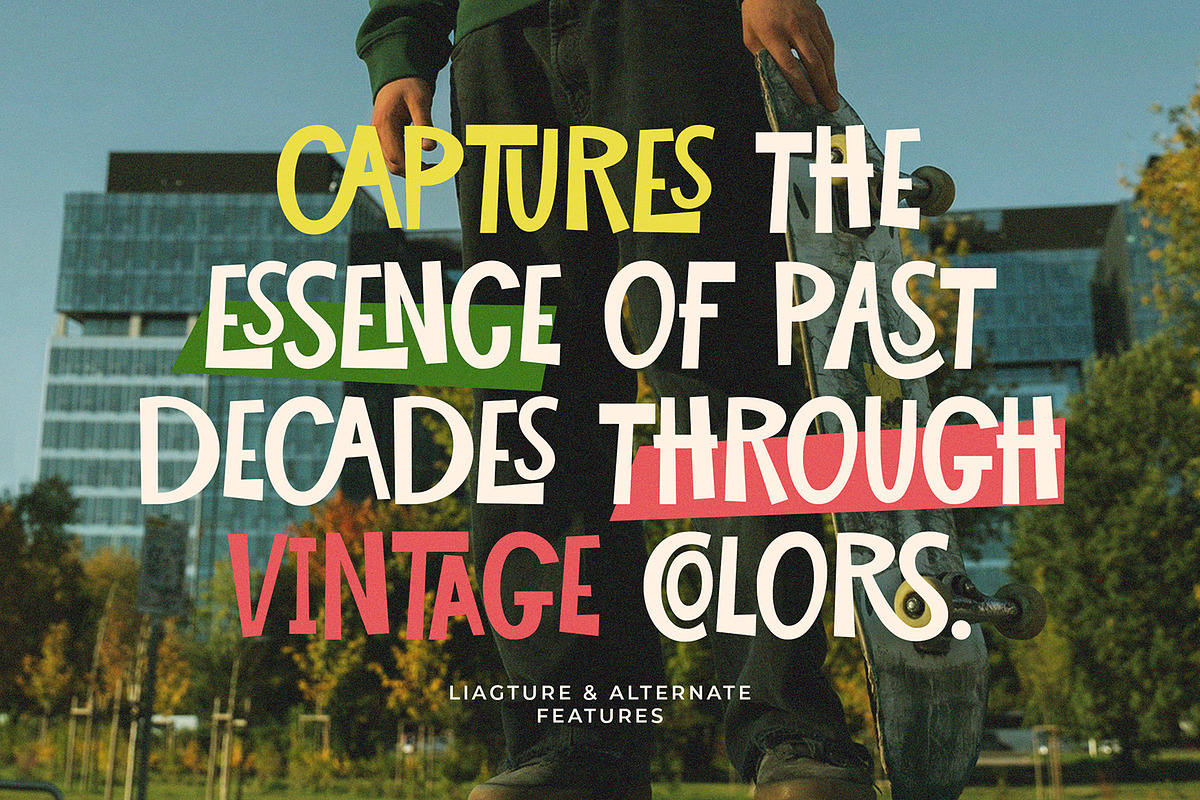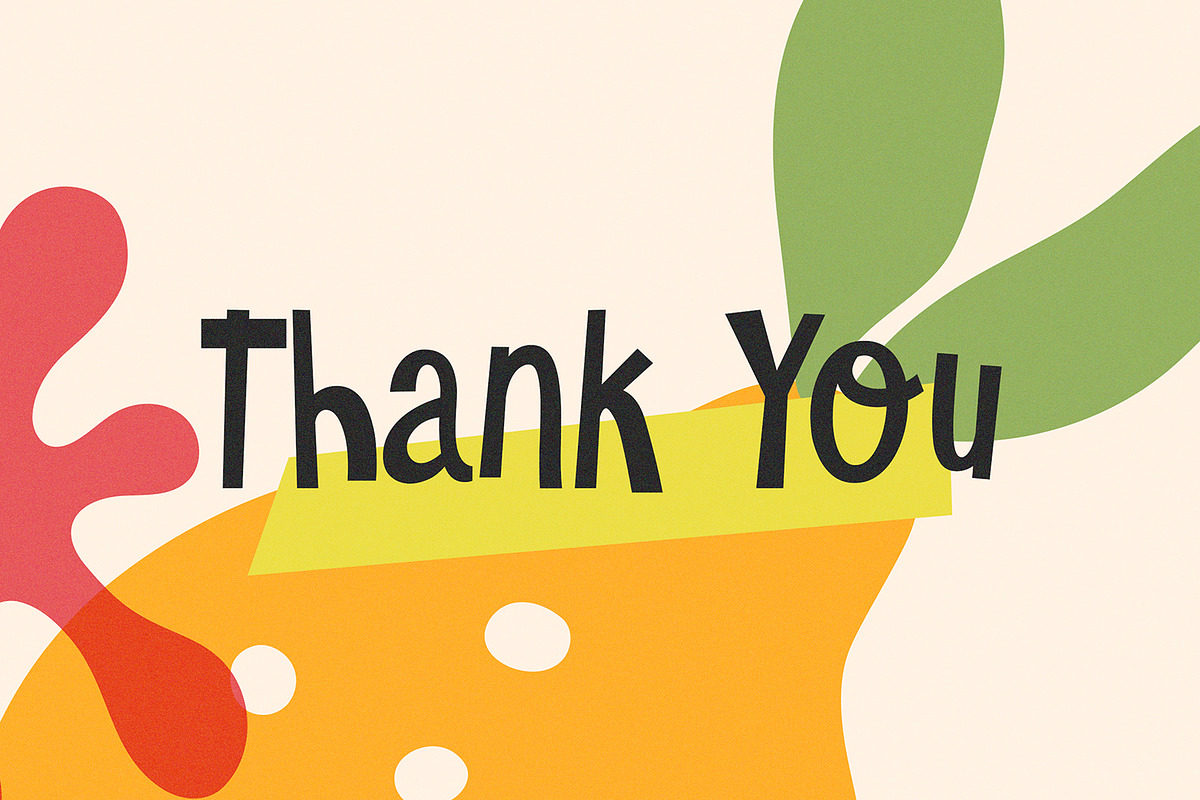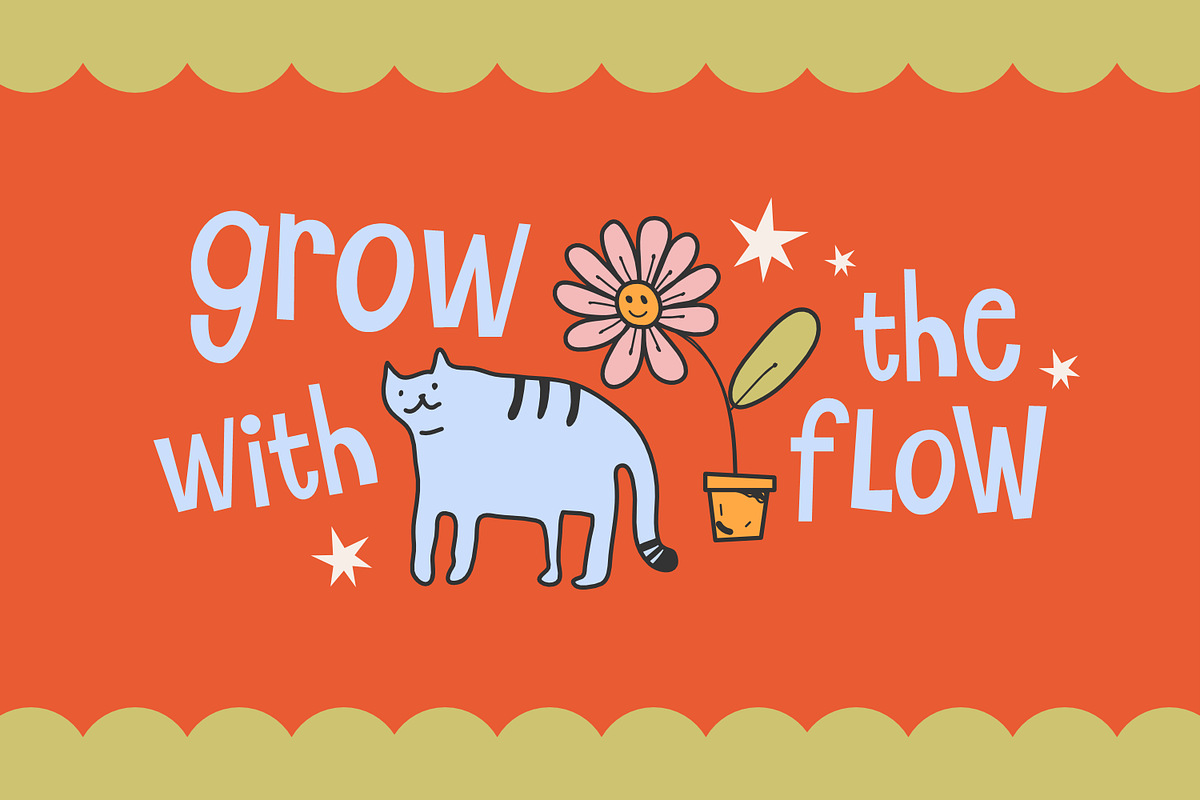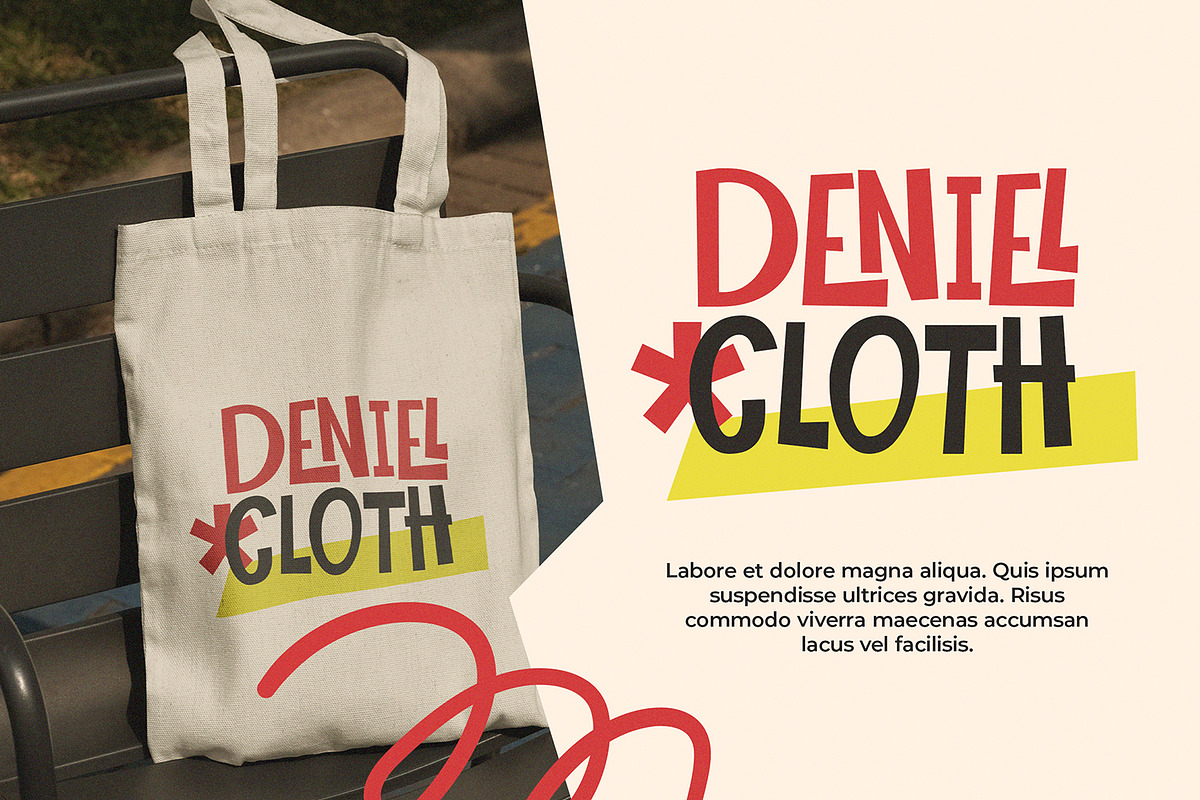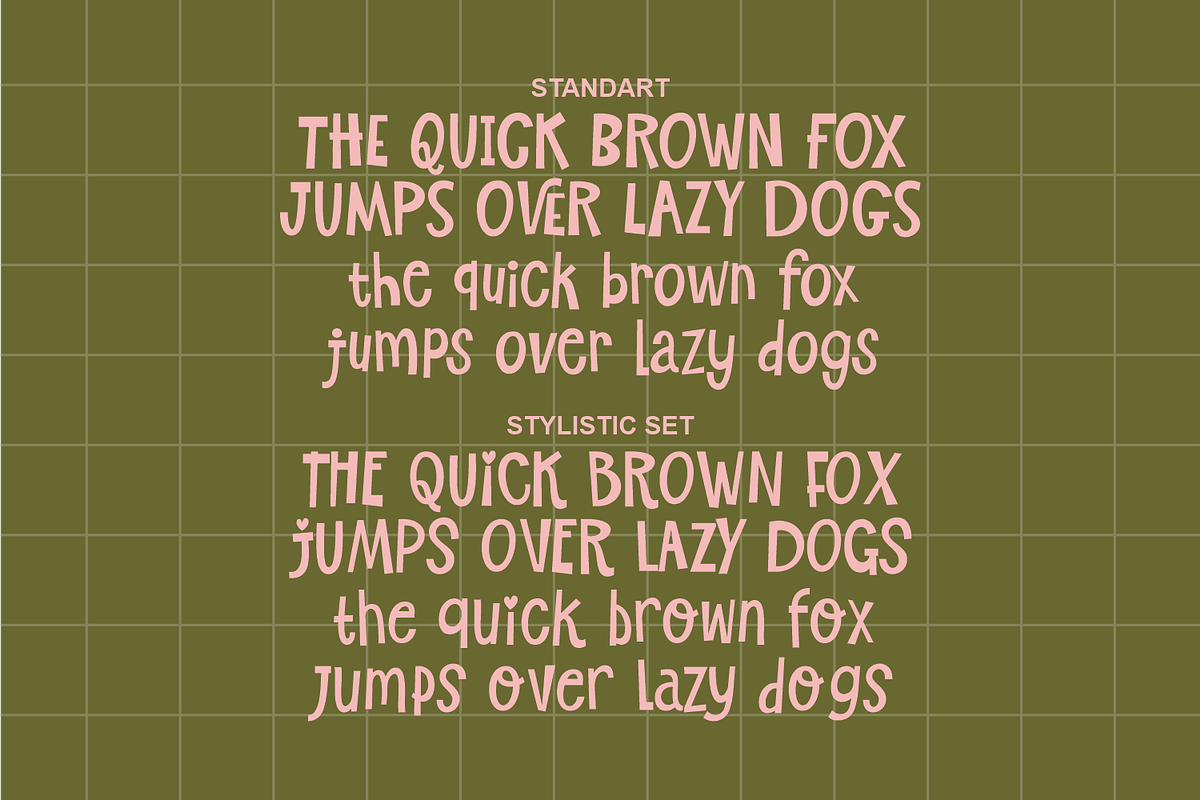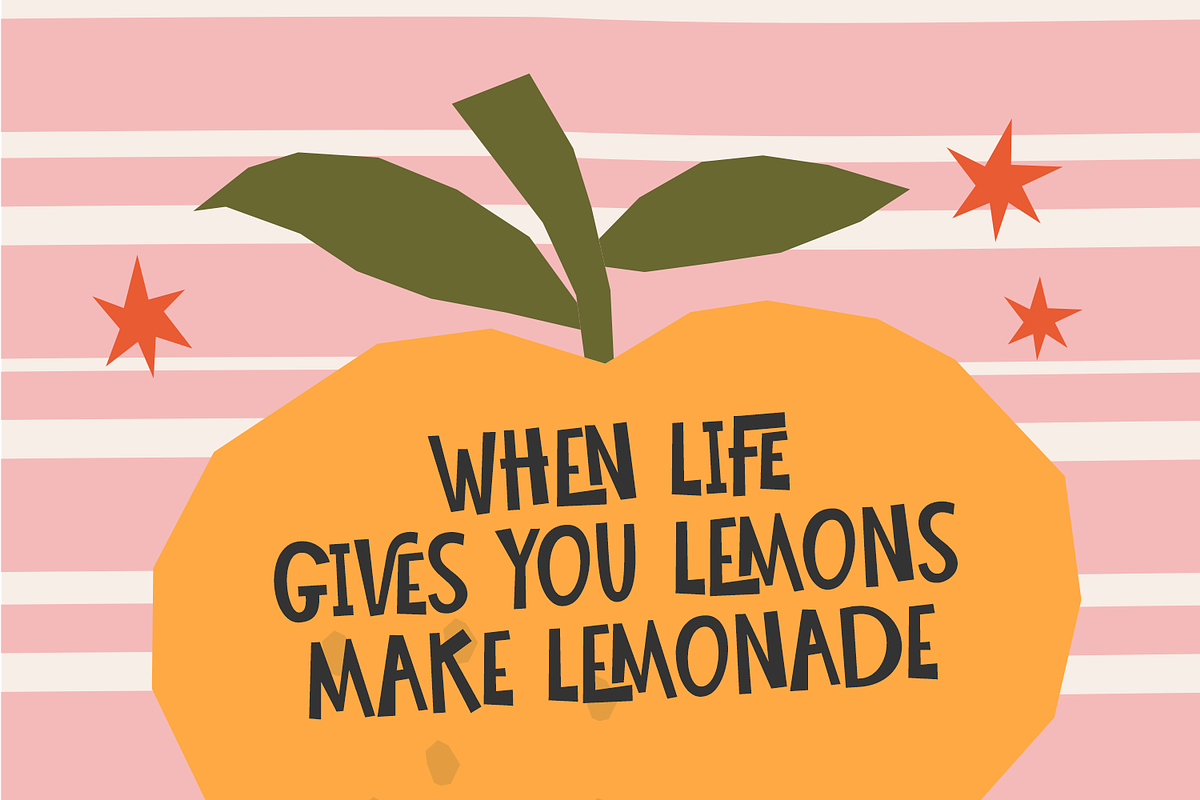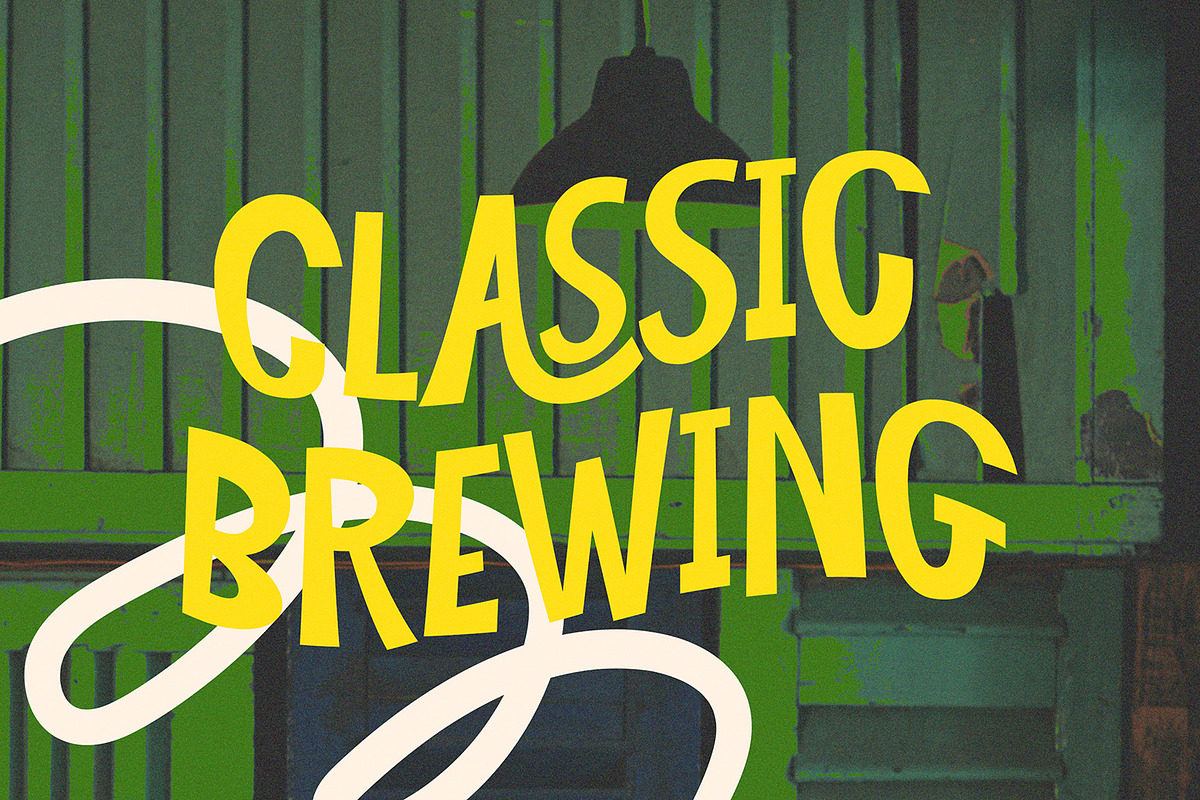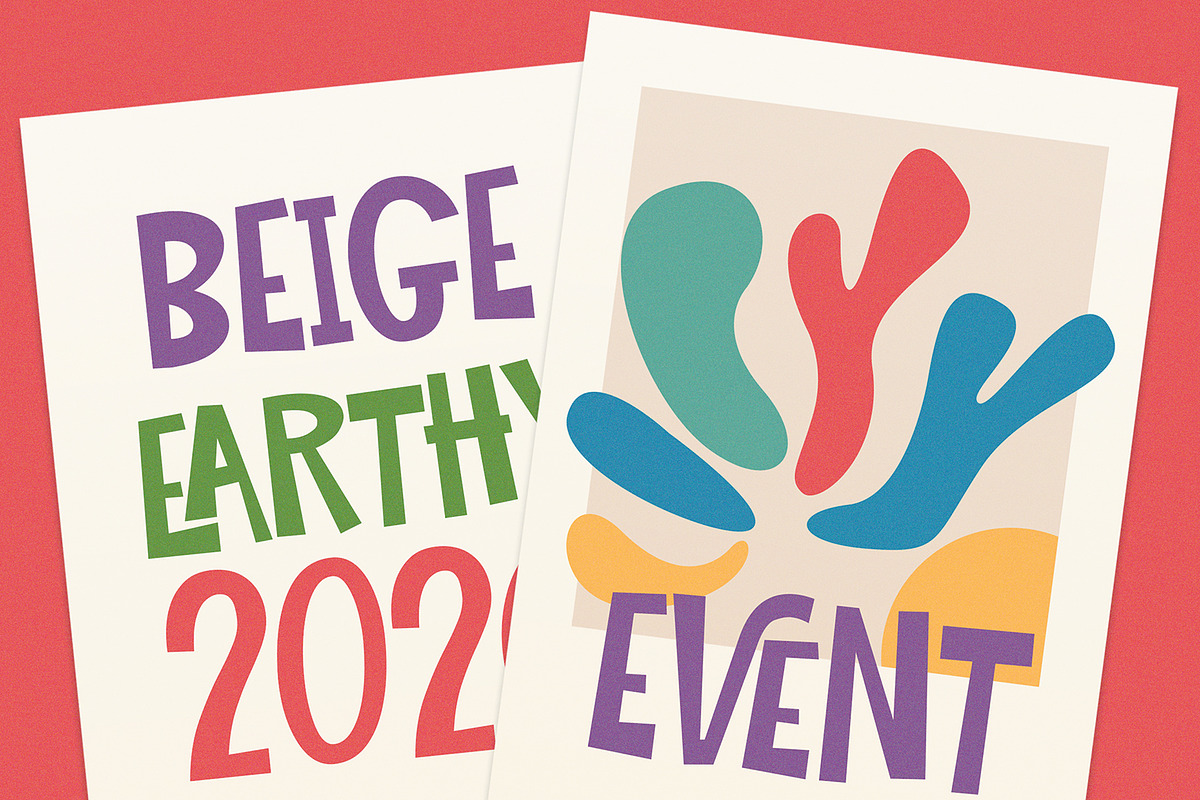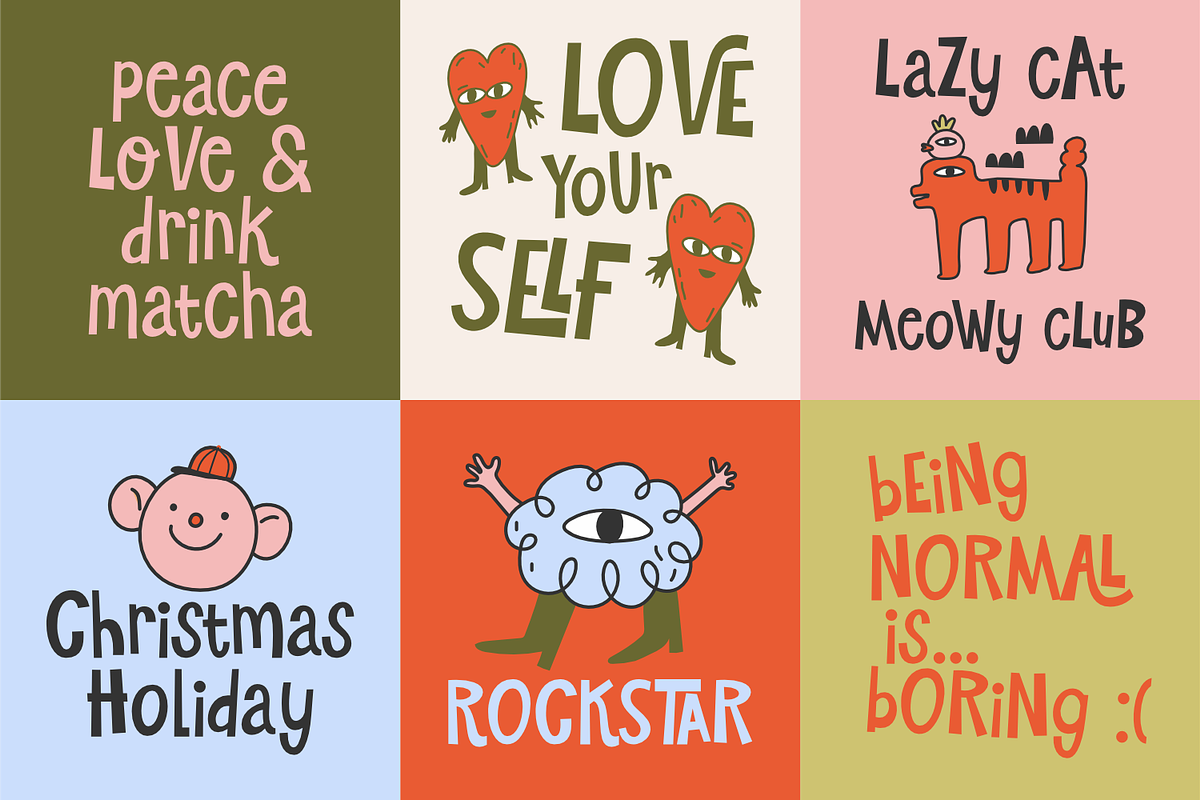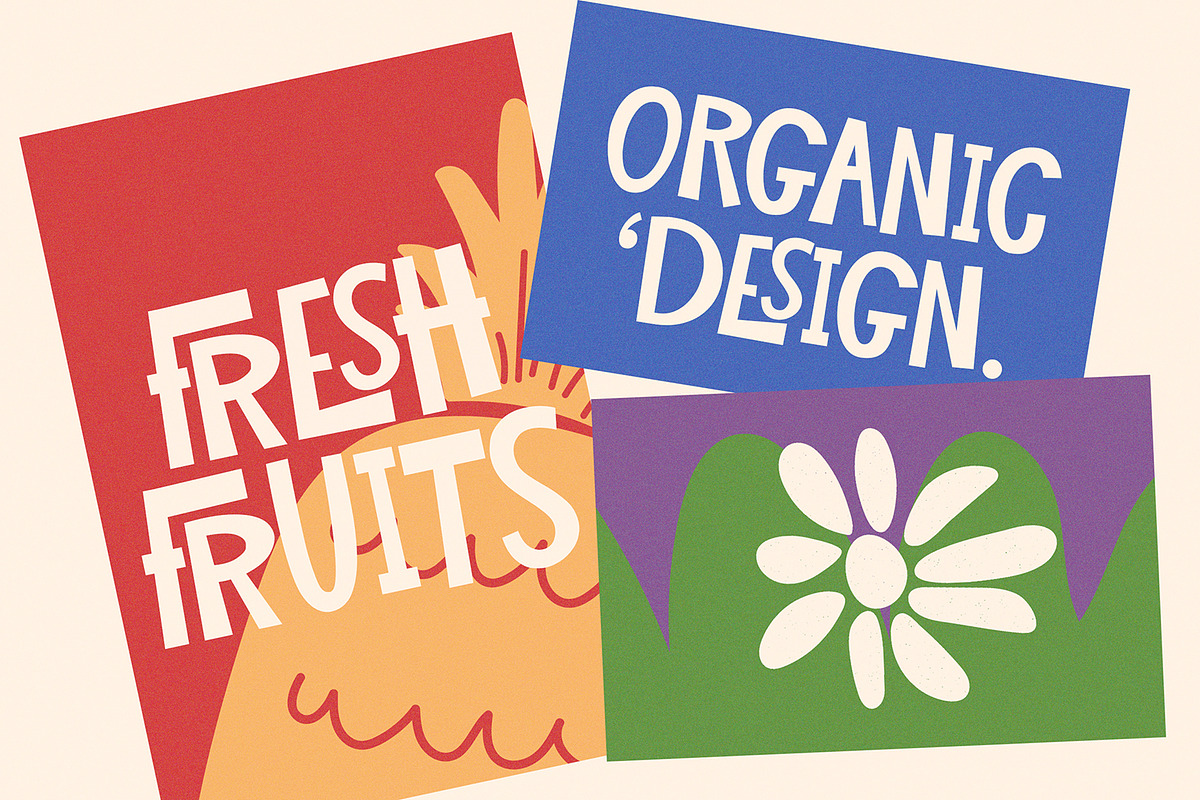
Natural Imperfect Whimsical Display
Natural Imperfect is a playful and whimsical display typeface that celebrates irregularity, charm, and hand-crafted character. Designed with uneven strokes and organic letterforms, this font delivers a warm, friendly, and joyful personality—perfect for designs that want to feel human and fun.
Inspired by imperfect shapes and natural flow, Natural Imperfect brings a cheerful retro-modern vibe that works beautifully across creative projects. Its bold yet soft appearance makes it ideal for eye-catching headlines while still feeling approachable and expressive.
Whether you’re designing for kids, lifestyle brands, or joyful visual stories, Natural Imperfect adds personality and uniqueness to every word.
Posters & headlines
- Children’s designs & playful branding
- Packaging & product labels
- Greeting cards & invitations
- Stickers, apparel & merchandise
- Social media & creative layouts
- Whimsical display style
- Handcrafted, imperfect letterforms
- Friendly and playful tone
- Strong readability for headlines
- Suitable for print & digital designs
✨ Let your designs feel fun, warm, and naturally imperfect.